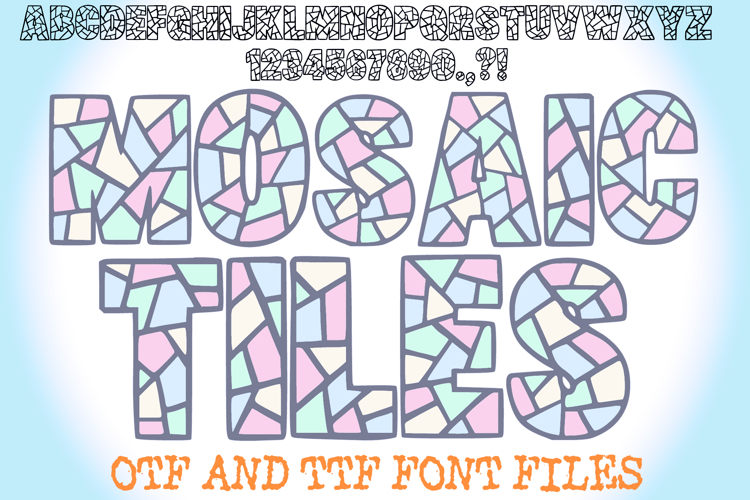
Mosaic Tiles Lettering ABC Font Typeface Shatter Alphabet
Add a creative sparkle to your designs with the Mosaic Tiles Font, a bold display typeface inspired by shattered glass and colorful mosaic tiles. Perfect for eye-catching titles, posters, logos, stickers, and craft projects, this font brings an artistic, geometric feel to every design.
Featuring uppercase letters, numbers, and punctuation, the Mosaic Tiles Font works beautifully for digital art, print design, branding, and DIY crafts. Available in OTF and TTF formats, it’s an ideal choice for designers and makers who want to add a modern, artistic edge to their text.